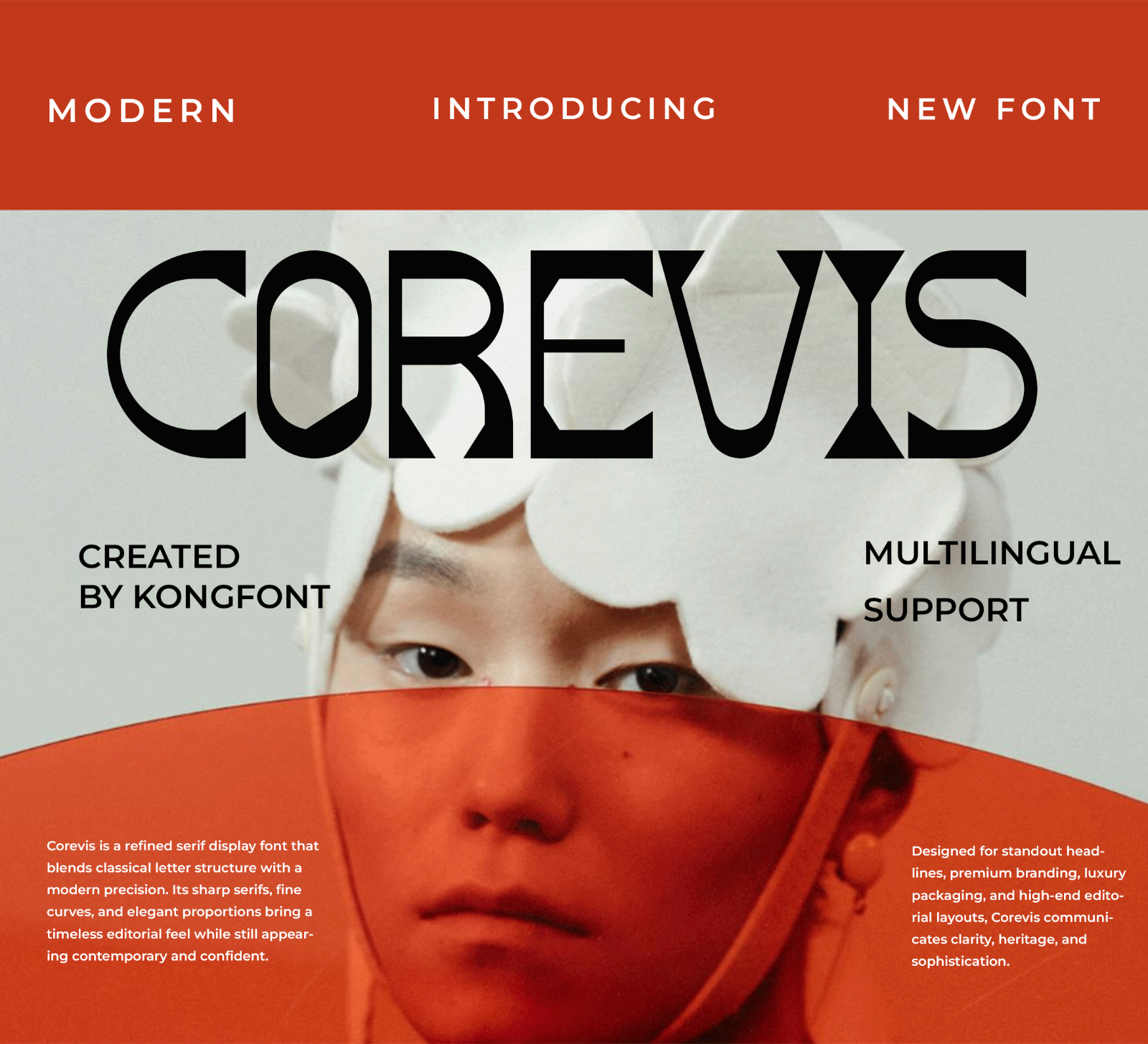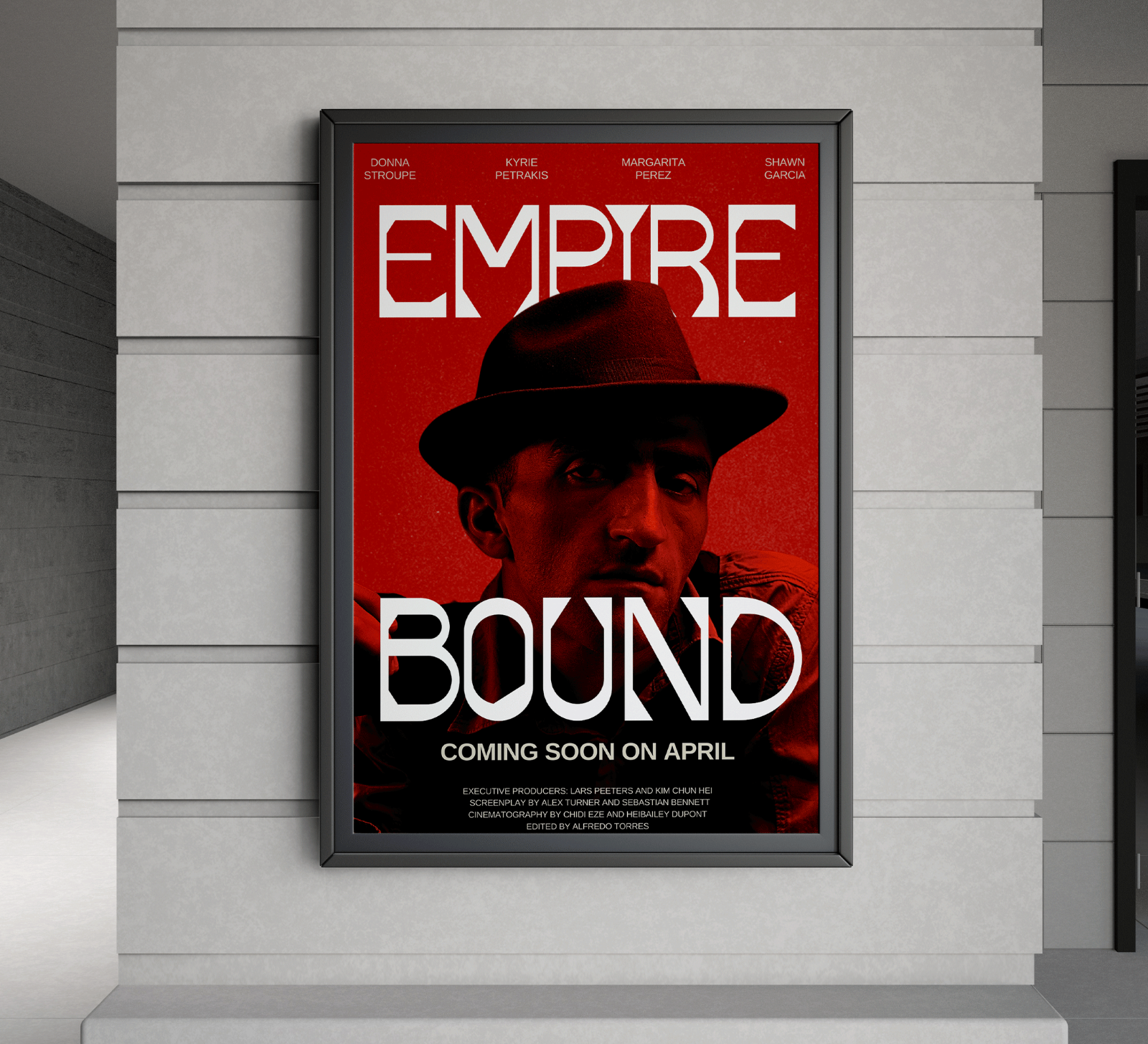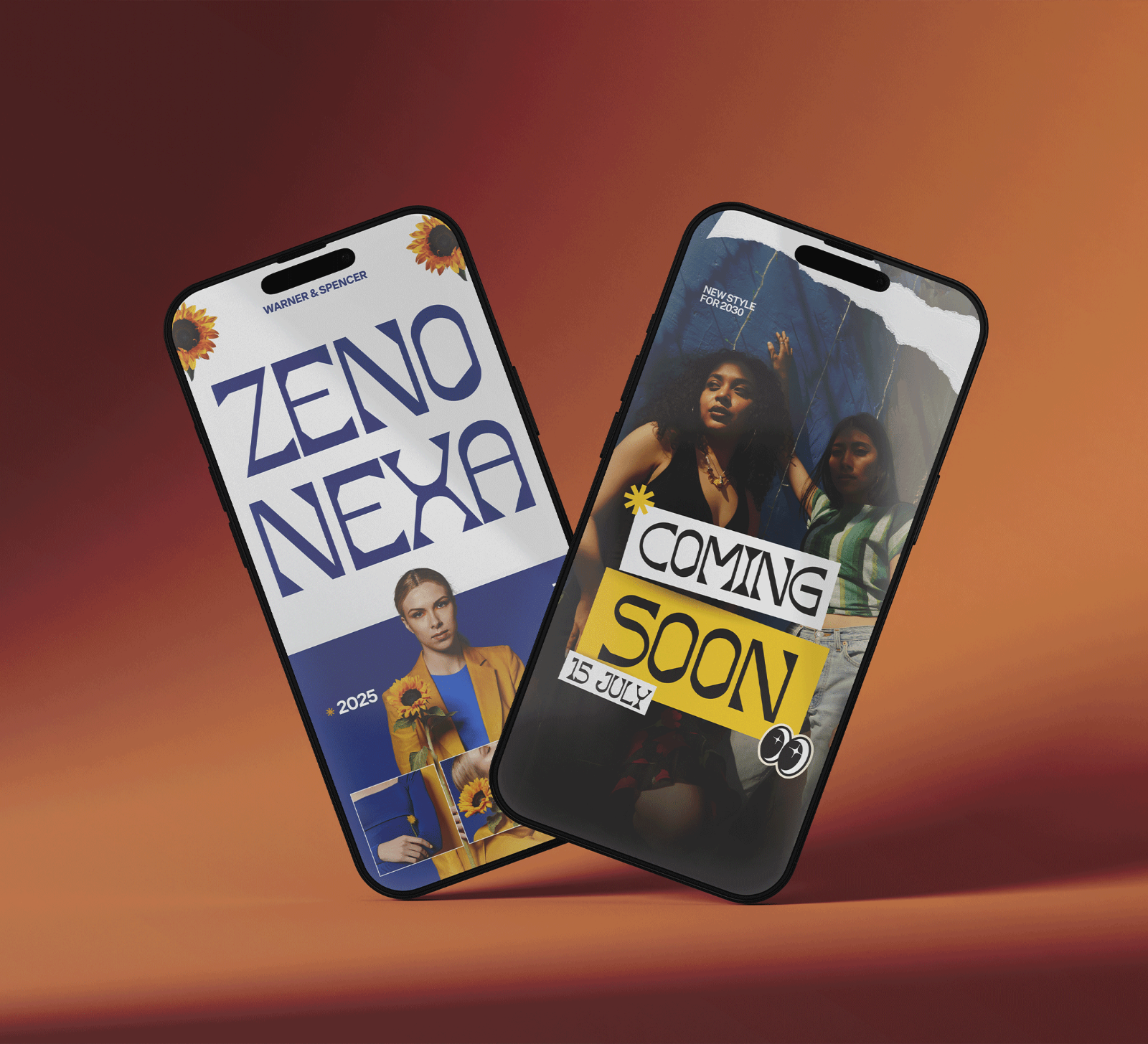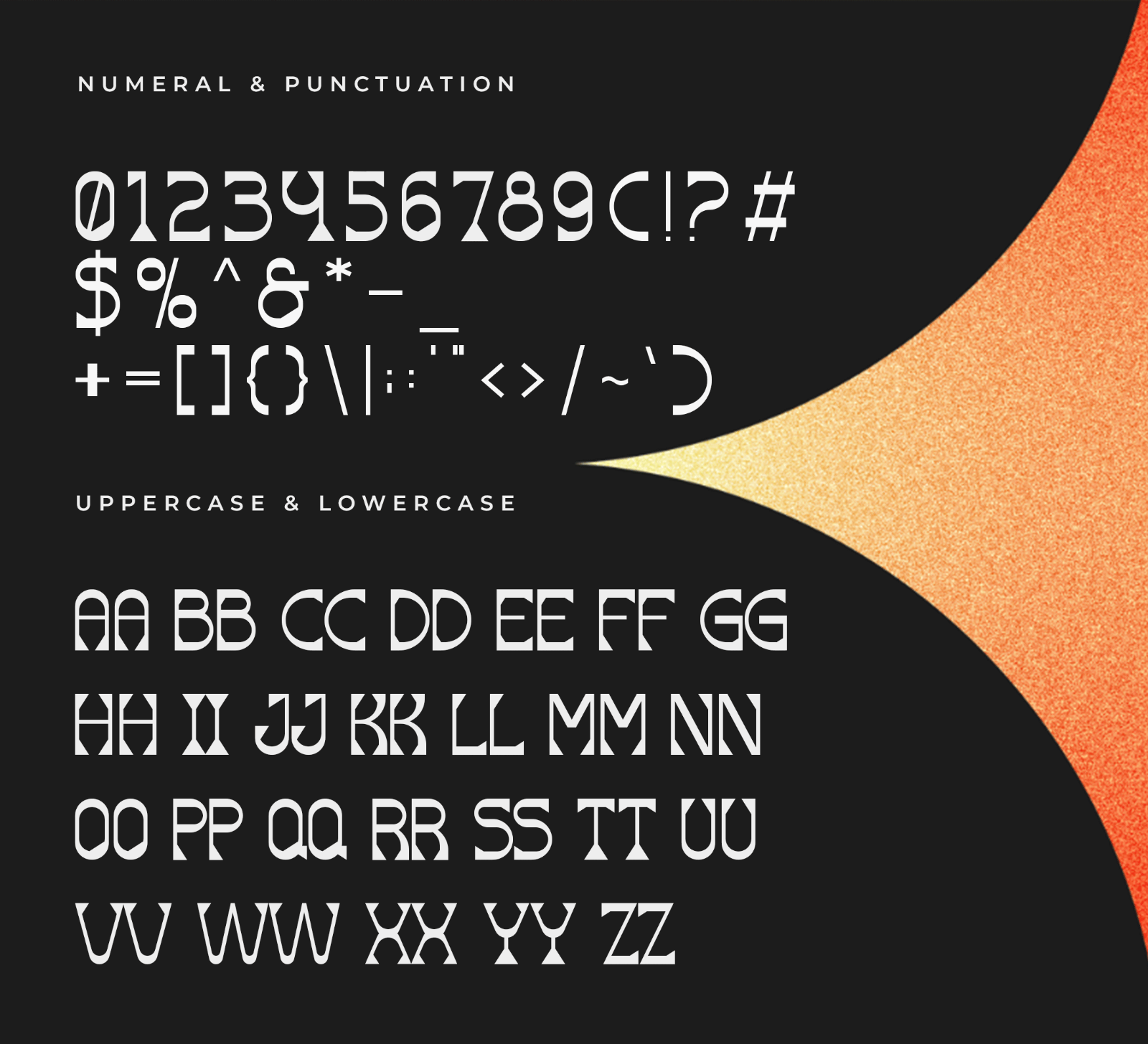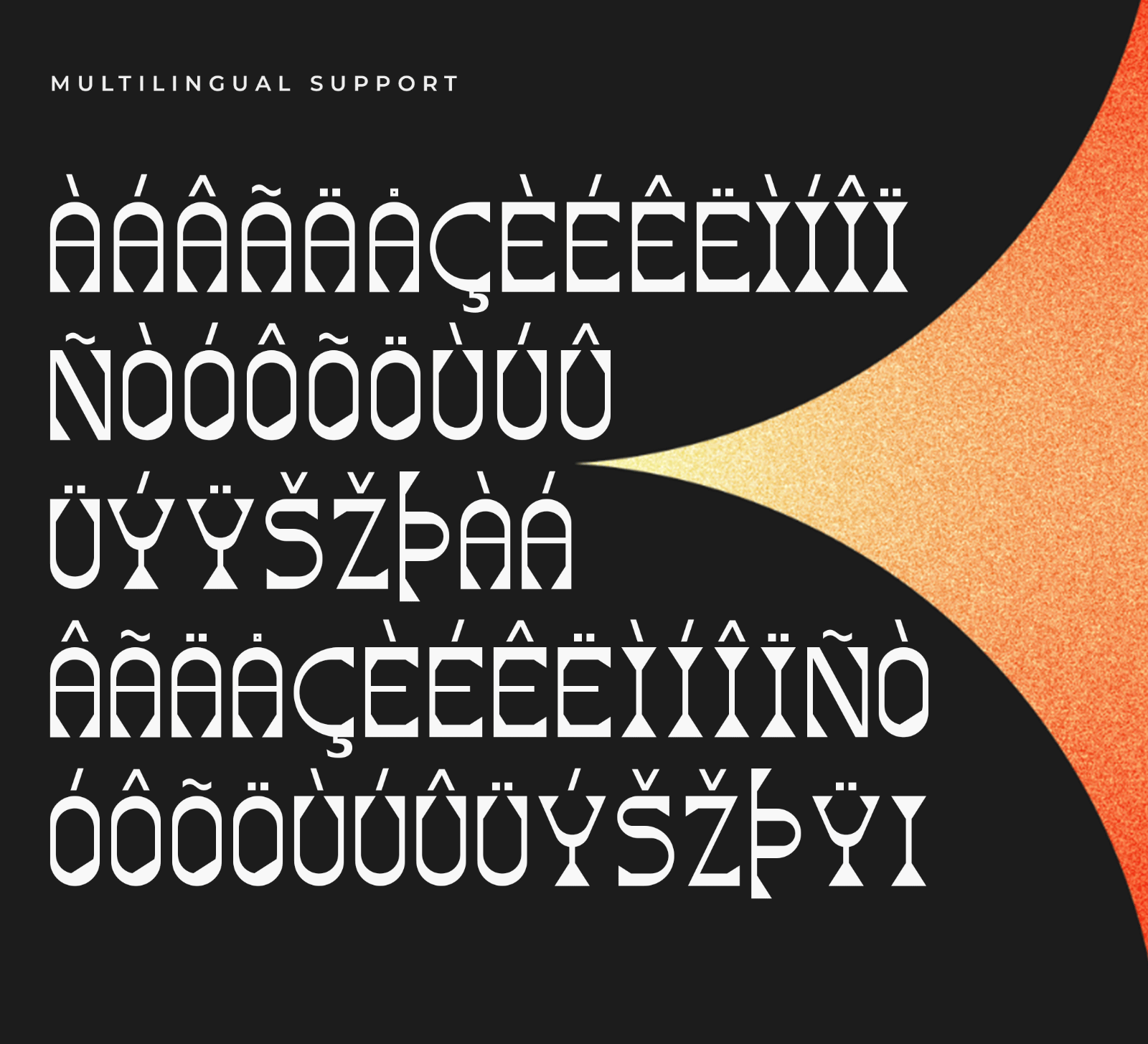
MarketplaceFontsCorevis – Modern Western Display Font
Corevis is a bold western display font inspired by classic cowboy and vintage slab serif typography. Its strong block serifs and easy-to-read letterforms bring a nostalgic, rustic, and authentic western feel to any design.
• Western branding
• Cowboy posters
• Rodeo designs
• Café & restaurant branding
• Signage
• Logos
• Book covers
• Movie titles
• T-shirts & apparel
• Stickers & merchandise